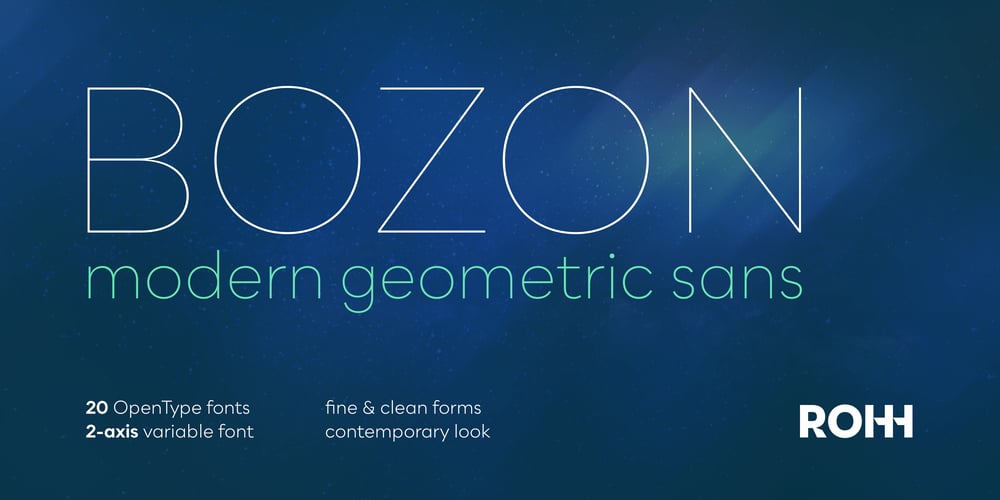
Bozon Font Family was designed by Roch Modrzejewski and published by ROHH. Bozon contains 21 styles and family package options. Bozon™ is a modern, minimalist geometric grotesk typeface. Letter shapes are crafted with the highest care for proportions and legibility. This clean, sharp sans serif is a great choice for all kinds of modern projects including branding, logo design and display use. Bozon™ family consists of 10 weights with corresponding italic styles, that give total of 20 styles. Italic styles were hand drawn to get sharp and fine letter shapes. The family has extended language support, as well as broad number of OpenType features, such as small caps, case sensitive forms, ligatures, stylistic sets, contextual alternates, lining, oldstyle, tabular, circled and small cap figures, slashed zero, fractions, superscript and subscript, ordinals, currencies and symbols.